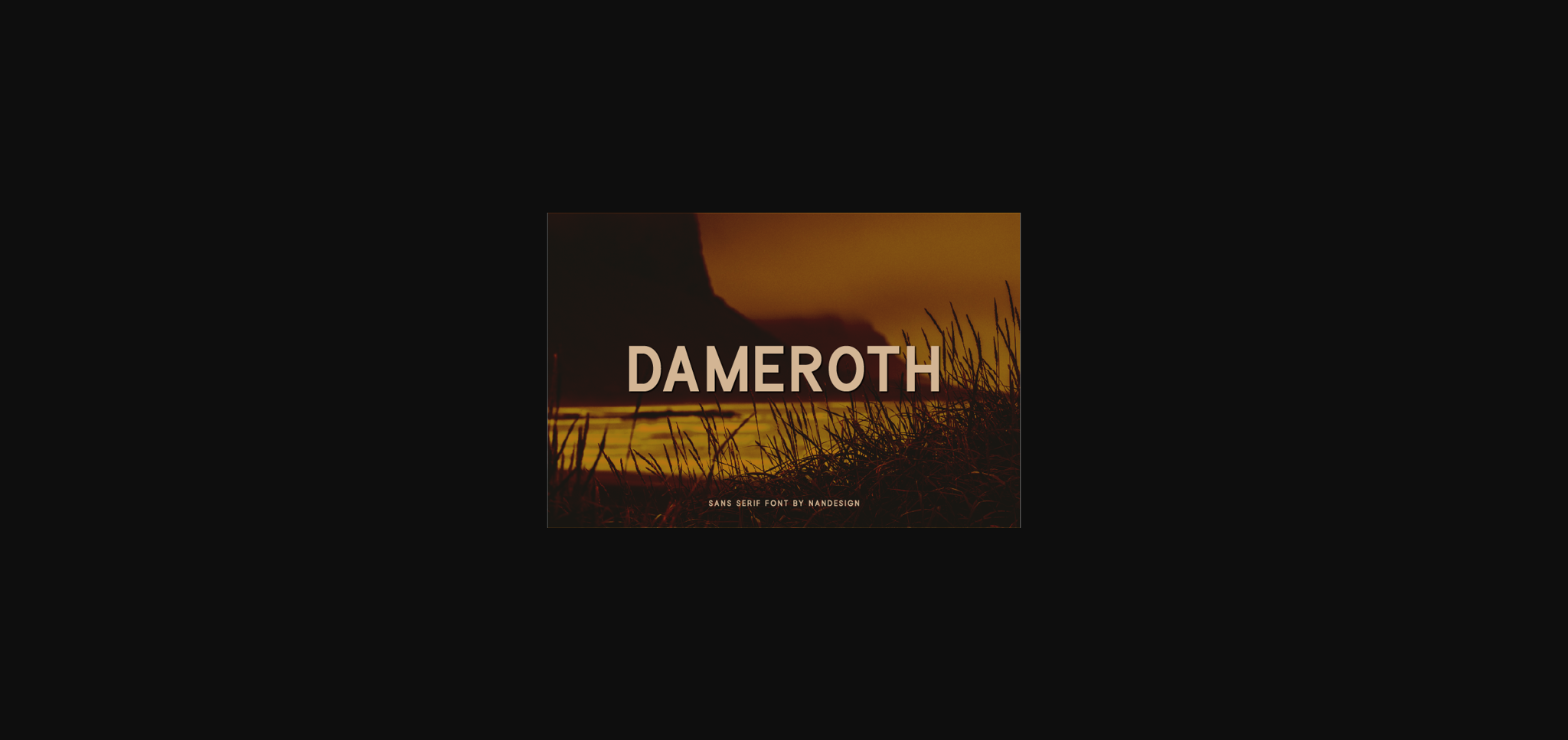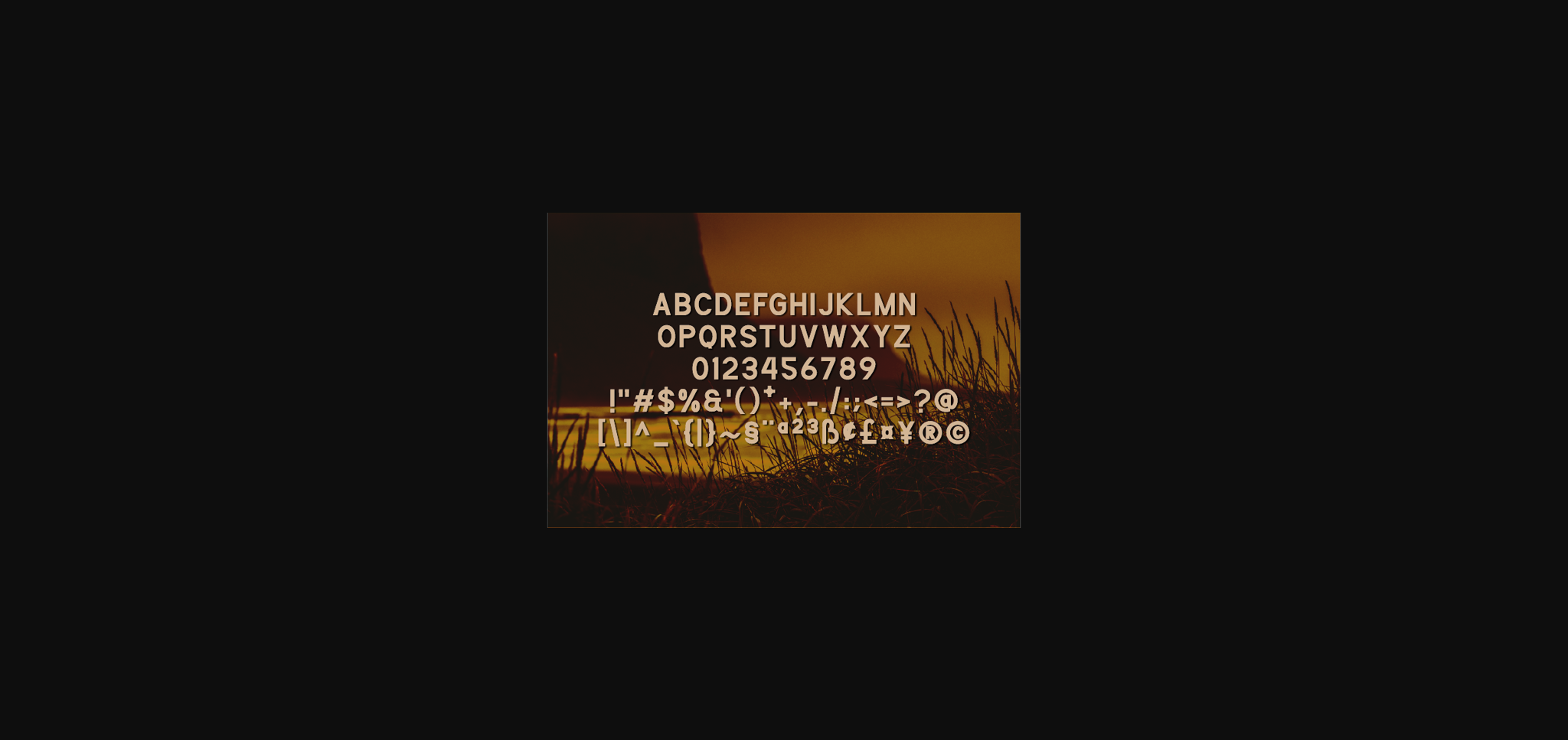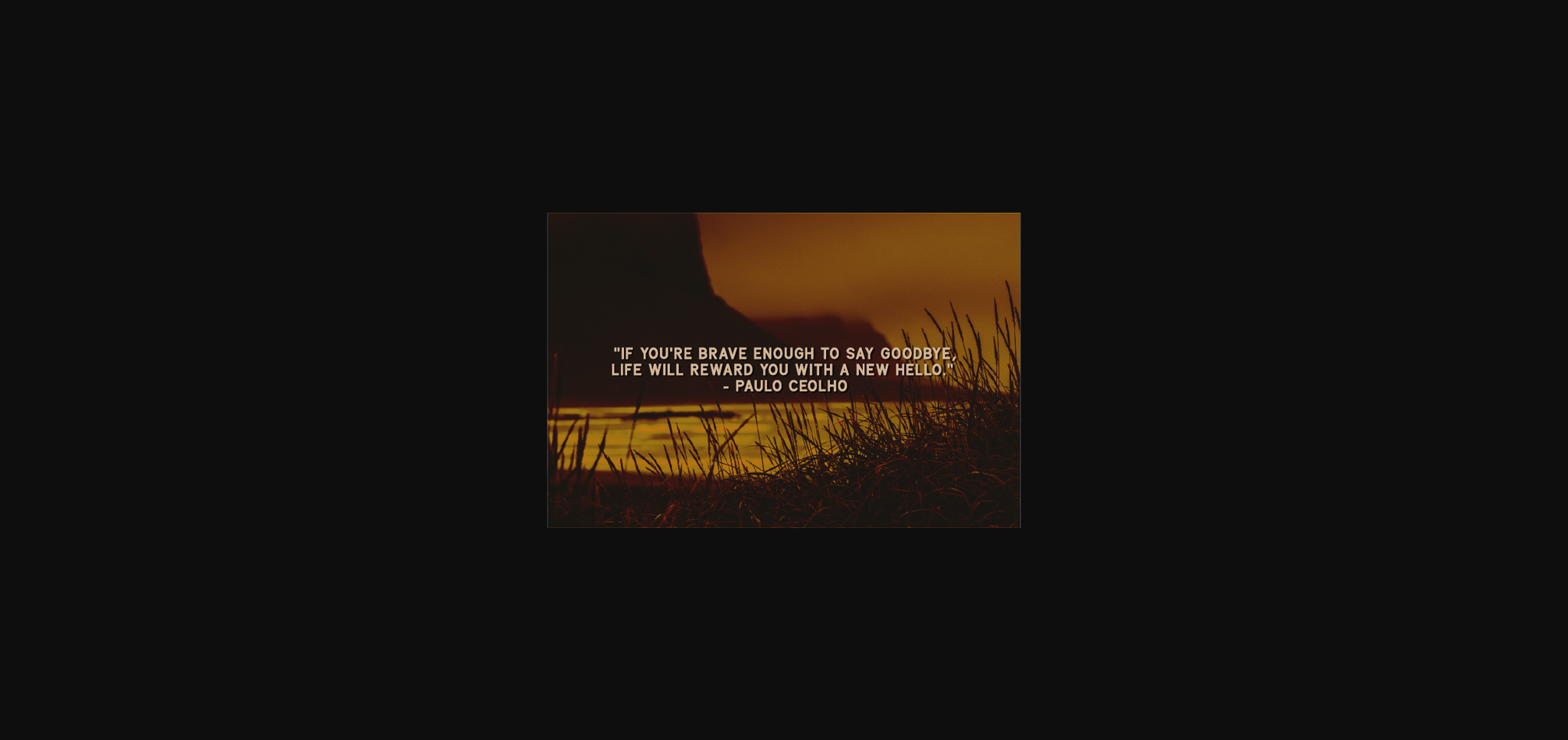
HomeSans Serif FontsDameroth Font Sans Serif Fonts Dameroth Font FacebookXPinterestWhatsApp 1 of 5 ... Dameroth Font Poster 2... Dameroth Font Poster 3... Dameroth Font Poster 4... Dameroth Font Poster 5... About Dameroth Font Dameroth is a minimal and neat sans serif font. It can be used for various purposes such as logos, wedding invitations, headings, t-shirts, letterhead, signage, labels, news, posters, badges and so much more. DOWNLOAD NOW People also explored Christmas December Font Pom Poko Font Greenhouse Font Stellon Font Miss Nailine Font Better Regards Font Octin Prison Lovagenic Font TT Globs Font 355 0 TagsDameroth Font Previous articleHorknest FontNext articleTresmone Font LEAVE A REPLY Cancel reply Comment: Please enter your comment! Name:* Please enter your name here Email:* You have entered an incorrect email address! Please enter your email address here Website: Save my name, email, and website in this browser for the next time I comment. Personal Use Free December Christmas Personal Use Free Read more about this font My Shine Personal Use Free Read more about this font Omira Personal Use Free Read more about this font Engine Personal Use Free Read more about this font BLOG 5 Fonts That Will Dominate Design Trends in 2026 5 Fonts for 2026 That Will Dominate Design Trends Typography plays a critical role in visual communication, and as we look ahead to 2026, it’s... Modern Sans-Serif Fonts That Brands Love in 2025 Where to Buy American Fonts Online in 2024 Top 7 Google Fonts Alternatives for Faster and Privacy-Friendly Web Design (2025)